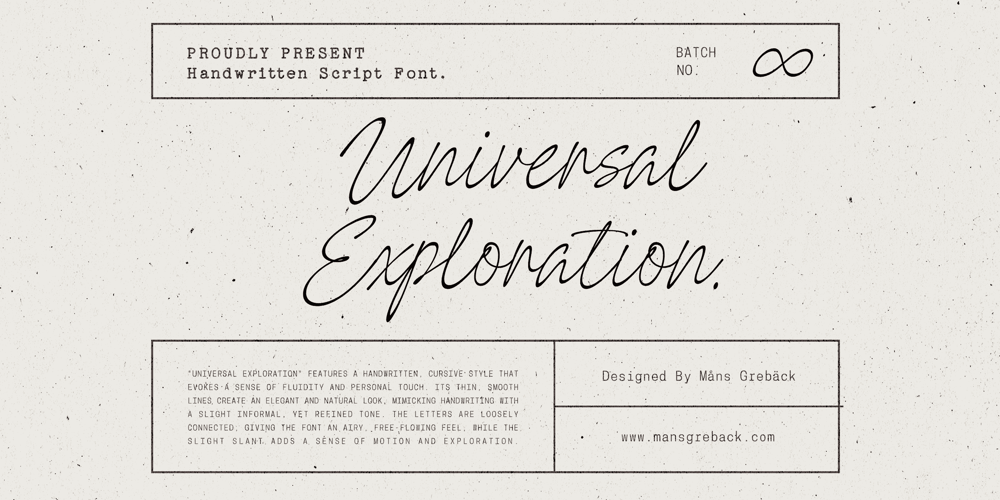
Universal Exploration
Universal Exploration font
Universal Exploration Font Family was designed by Måns Grebäck and published by Mans Greback. Universal Exploration contains 4 styles and family package options. Universal Exploration is a flowing, elegant script font that captures the fluid motion of ink on paper. With a natural handwritten style, this typeface mimics the personal touch of a well-practiced signature. The letters carry a confident yet casual feel, evoking the aesthetic of a spontaneous yet refined note or personal letter.Each stroke in Universal Exploration reflects the authenticity of traditional ink writing, with slight imperfections and subtle variations in line weight that make it feel alive. Its smooth curves and carefully crafted ligatures give it a seamless flow, perfect for capturing the essence of handwritten communication.The font is built with advanced OpenType functionality and guaranteed top-notch quality, containing stylistic and contextual alternates, ligatures, and more automatic and manual features; all to give you full control and customizability. It has extensive lingual support, covering all Latin-based languages, from North Europa to South Africa, from America to South-East Asia. It contains all characters and symbols you’ll ever need, including all punctuation and numbers.Designed by Mans Greback, Universal Exploration is crafted with the designer’s keen attention to detail, ensuring every letter is perfectly suited for use in elegant and creative projects.